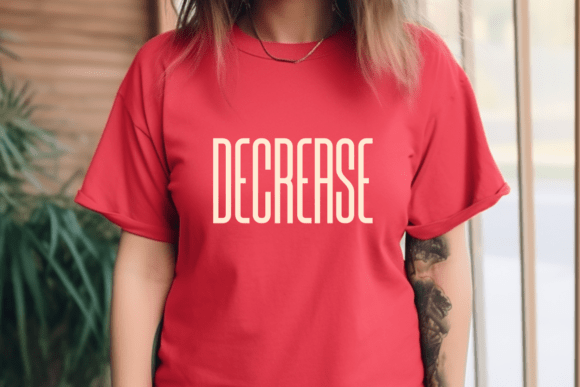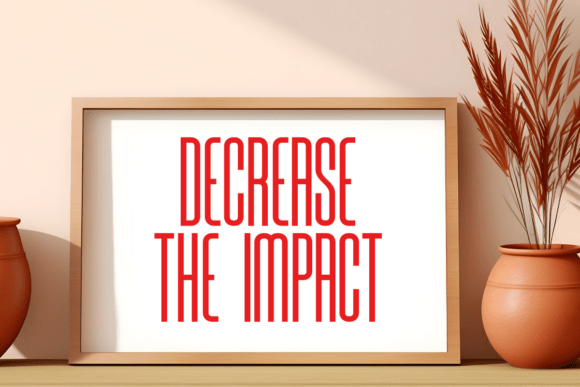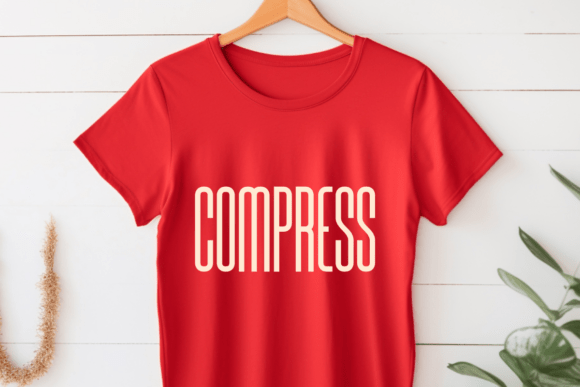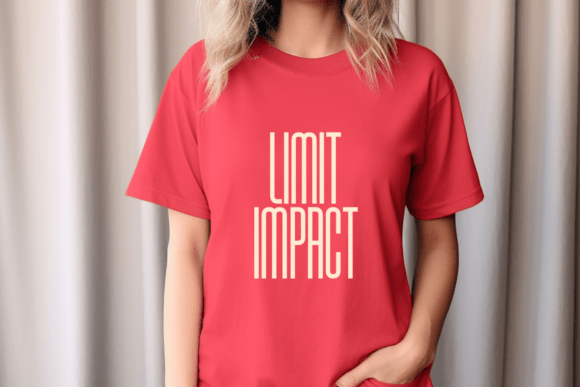
Introduction to Minimize Font
Minimize is a sleek and stylish condensed sans serif font designed for creators who value clean aesthetics and strong visual impact.
With its tall, narrow letterforms and elegant spacing, this font is perfect for Print On Demand projects like t-shirts, posters, mugs, and tote bags, as well as for film titles, branding, logos, and modern packaging Its versatile style fits both professional and playful designs, making it ideal for crafting projects, minimalist branding, or cinematic visuals.
Key Features of Minimize Font